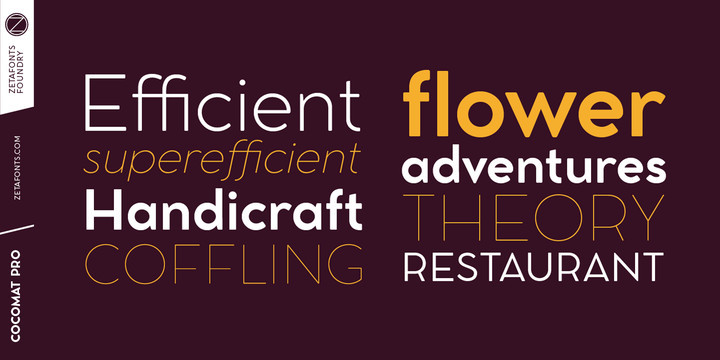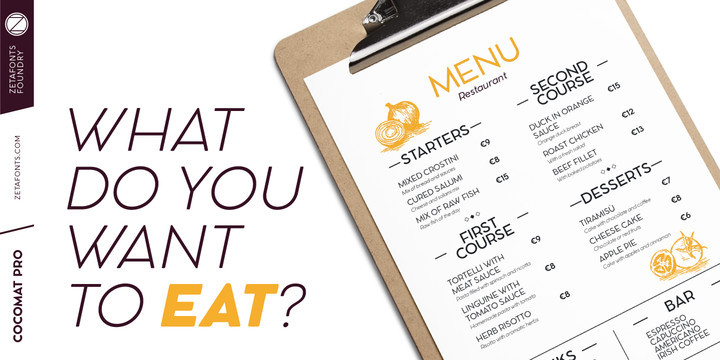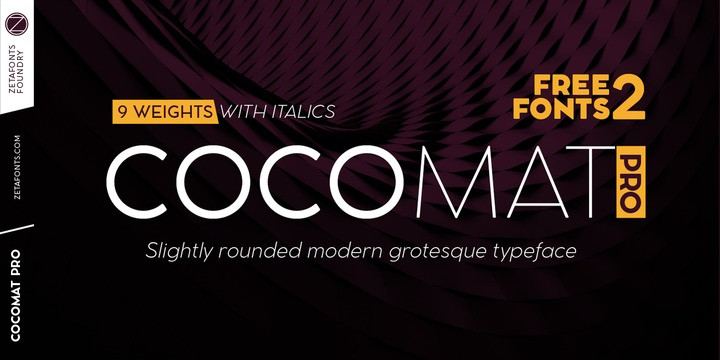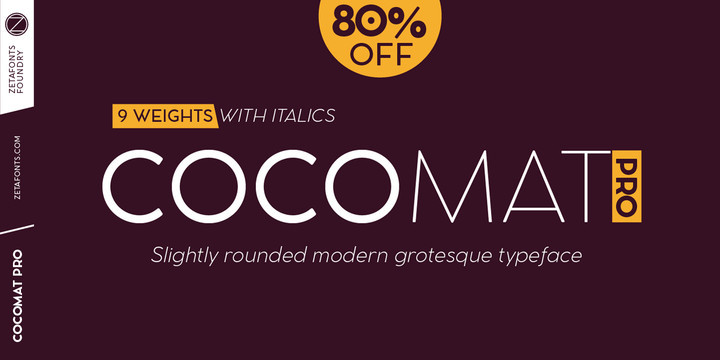
Cocomat Pro Font Family
Cocomat Pro Font FamilyCocomat has been designed by Francesco Canovaro and Debora Manetti as a development of the Coco Gothic typeface system created by Cosimo Lorenzo Pancini. It shares with all the other subfamilies in the Coco Gothic system a geometric skeleton with open, more humanistic proportions, a sans serif design with slightly rounded corners and low contrast proportions, without optical compensation on the horizontal lines, resulting in a quasi-inverted contrast look in the boldest weights.